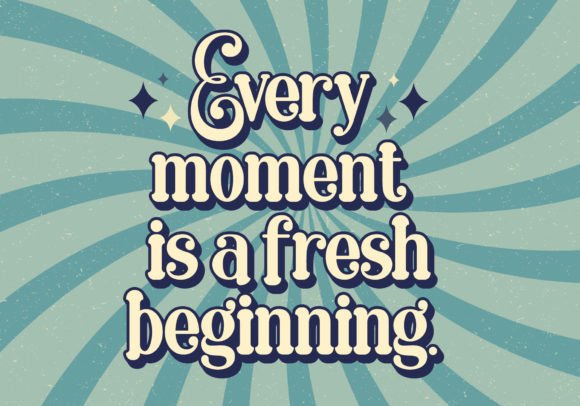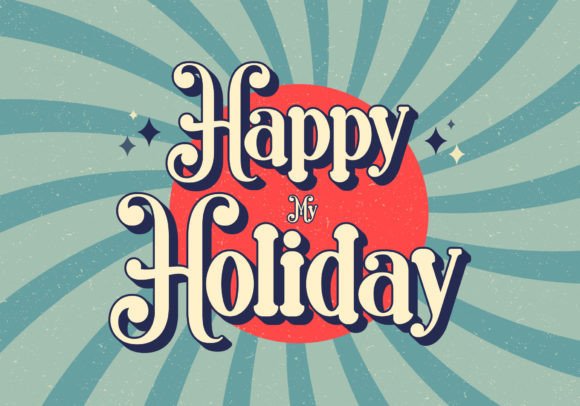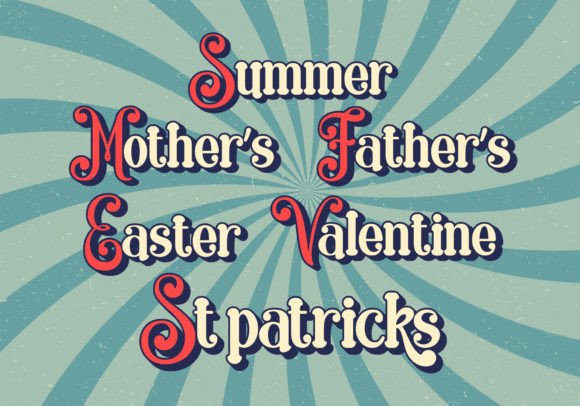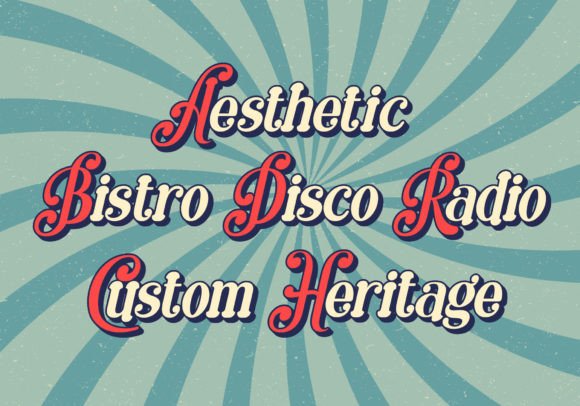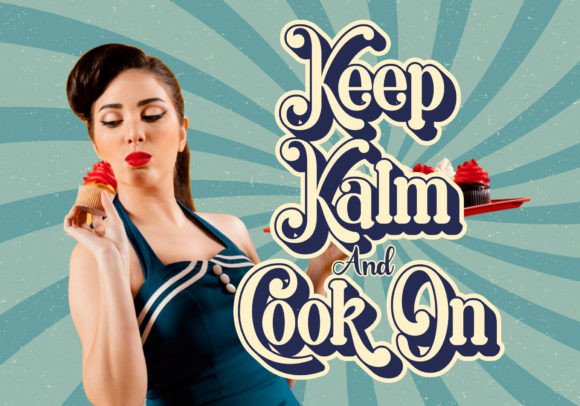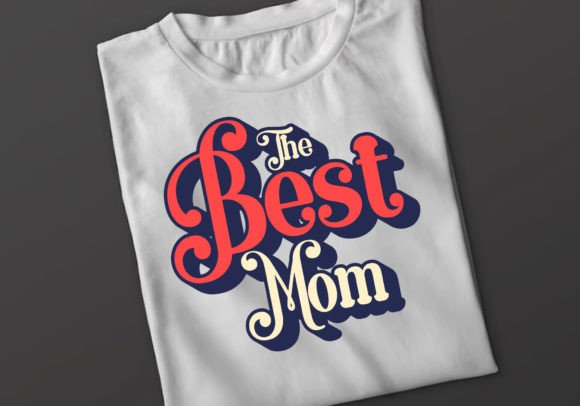
Get Ready to Groove with the Back to Vintage Font
Have you ever been flipping through a stack of old vinyl records, and suddenly, a catchy tune from the 70s hits you like a ton of bricks? That’s when the nostalgia kicks in, and you’re instantly transported back to a bygone era. For designers, that same feeling can be achieved with the perfect font – one that screams “retro” and grabs attention. Introducing Back to Vintage Font, a vintage-style display font that’s inspired by the iconic typography of the 60s, 70s, and 80s.
With its soft, rounded corners and unique shape, Back to Vintage Font adds a special touch to any design idea. Whether you’re creating a poster, a flyer, or a social media graphic, this font is sure to make your design stand out. As a designer, you know how valuable it is to have a versatile tool like Back to Vintage Font in your toolkit – it’s the perfect way to add a touch of nostalgia and whimsy to your work.
Key Features of Back to Vintage Font
- Font Family: Back to Vintage Font is a unique, distressed font with a vintage feel.
- Character Set: Includes a wide range of characters, including uppercase and lowercase letters, numbers, and punctuation marks.
- Unique Characteristics: Features a distressed, vintage look with worn edges and subtle texture, adding a touch of nostalgia to any design.
Back to Vintage Font Review
Overall, I found “Back to Vintage Font” to be a decent choice for those looking to add a nostalgic touch to their designs. ✨ The font’s distressed texture and worn look can effectively evoke a sense of vintage charm, making it suitable for projects that require a retro aesthetic.
Some of the font’s strengths include:
- ✨ Its ability to add a sense of character to text, making it stand out from more modern fonts.
- ✨ The font’s versatility, as it can be used for a variety of applications, from headlines to body text.
- ✨ The availability of multiple styles and weights, allowing designers to experiment with different looks.
- ⚠️ The font may be too over-the-top for some projects, potentially detracting from the overall message or tone.
- ⚠️ Some of the characters may be difficult to read, especially at smaller font sizes.
Overall, I would recommend “Back to Vintage Font” to designers who are looking to add a touch of nostalgia to their projects. While it may not be the best choice for every project, it can be a valuable addition to a designer’s toolkit.
The Back to Vintage font is perfect for:
- Creating retro-themed designs and graphics.
- Designing packaging and labels for vintage-inspired products.
- Adding a touch of nostalgia to your branding and marketing materials.